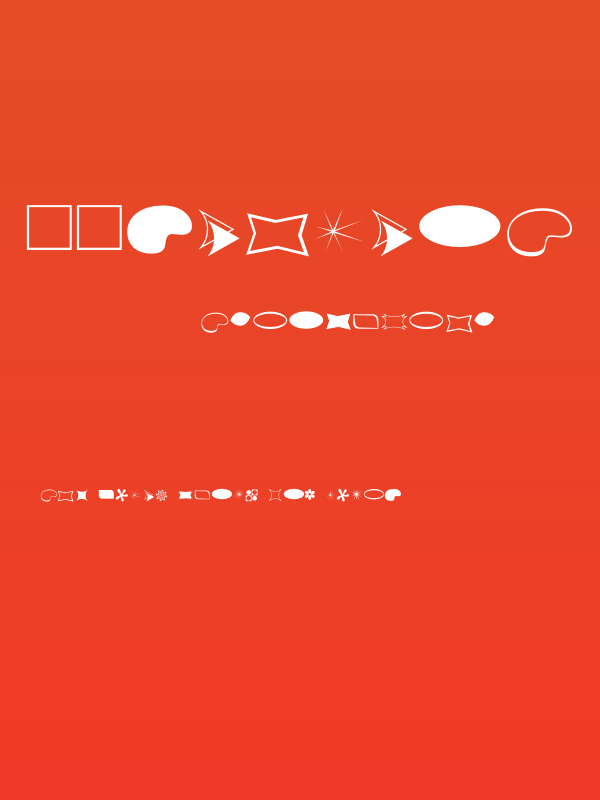
60sChicOT Font
✎ Dingbats
| 全体的なスタイル | Decorative, Retro, Playful |
| 用途 | Decorative elements, Borders, Themed graphics |
| おすすめプロジェクト | Party invitations, event posters, retro branding, decorative borders, scrapbooking, themed social media graphics. |